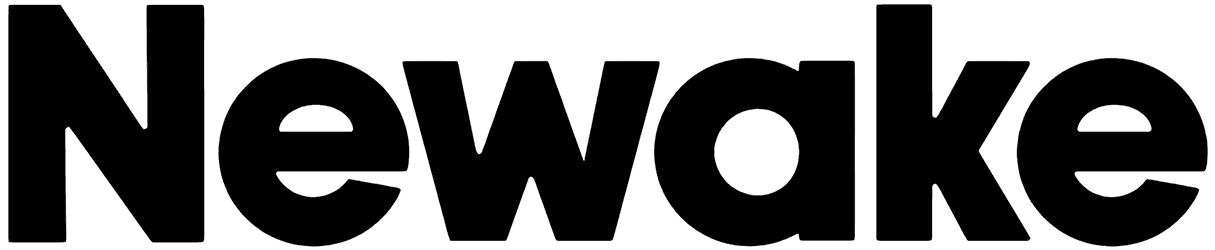
Newake Font
No matter your industry, using simple and functional Newake icons can help make your business stand out. This sans serif font does not contain any abstract or decorative symbols and has minimalist lines that will double…
No matter your industry, using simple and functional Newake icons can help make your business stand out. This sans serif font does not contain any abstract or decorative symbols and has minimalist lines that will double the credibility of your writing. If you are designing a website or want to choose the correct text for your t-shirt or office, we recommend you use Newake.